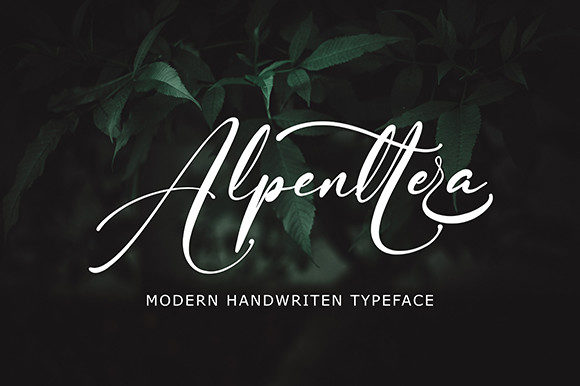
About Alpenttera Font
Alpenttera is a ravishing handwritten font, masterfully designed to become a true favorite. It maintains its classy calligraphic influences while feeling contemporary and fresh. Alpenttera is PUA encoded which means you can access all of the glyphs and swashes with ease!